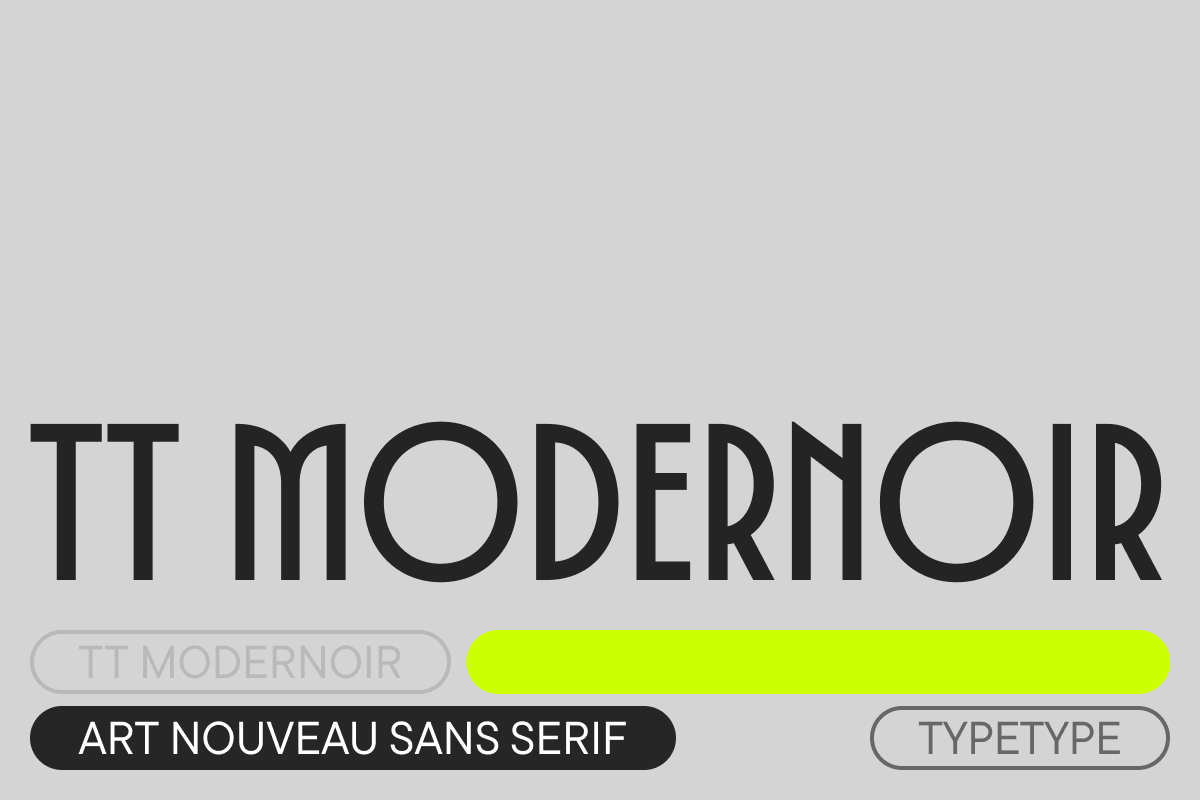
TT Modernoir Regular
TT Modernoir is a display sans serif with dynamic proportions. In this font, the fluid lines and elegant forms of Art Nouveau are combined with the rhythm and improvisational freedom of jazz. During its creation, we were inspired by 20th-century French typography, as well as the aesthetic of film noir, which is reflected in the typeface’s name. It is perfectly suited for event posters, signage, packaging design, magazine and book covers, as well as for branding and logos.